Discover a charming selection of 11 modern display fonts perfect for Valentine’s Day projects. This curated collection brings together a variety of stylish typefaces — from romantic handwritten scripts to clean contemporary display fonts. Whether you’re creating greeting cards, social media posts, product packaging, stickers, or printable gifts, these Valentine’s Day fonts will instantly elevate your design.
Inside the collection, you’ll find elegant romantic typefaces, playful handwritten styles, bold modern Valentine fonts, and warm, expressive lettering. Each font is easy to use, compatible with major design software, and ideal for both personal and commercial creative work.
Romantic Valentine Font
Sunday School Font
Soul Journey Font
Hello Mello Font
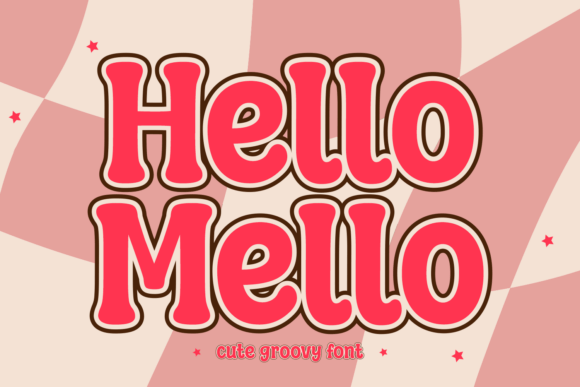
Charlie Dreams Font
Modern Valentine Font
February Valentine Font
Chocolate Valentine Font
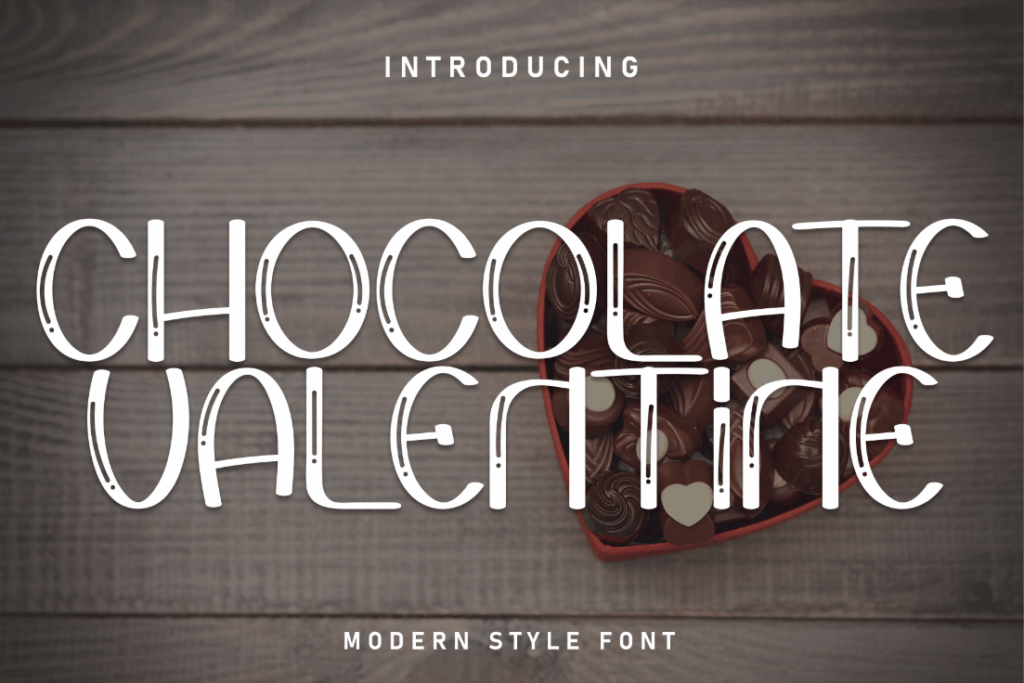
Circle Story Font
Handwriting Valentine Font
Beauty Valentine Font